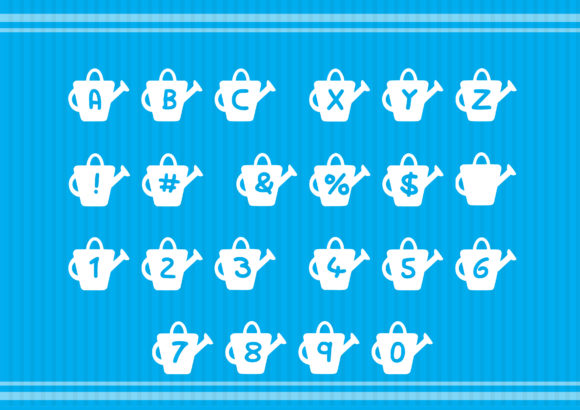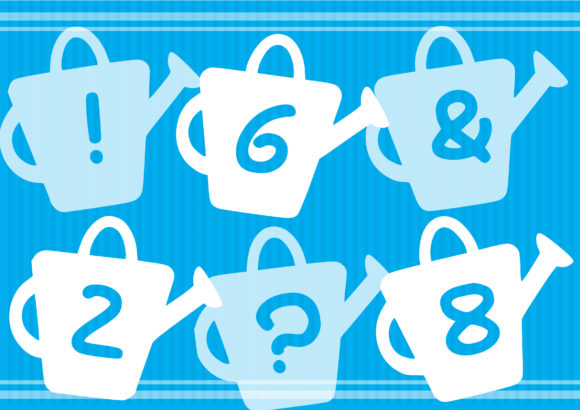
Introduction to Play Watering Can Font
As a designer, there’s nothing quite like the thrill of bringing a creative project to life. You’ve poured your heart and soul into every detail, from the color palette to the typography. But sometimes, it’s the little things that can make all the difference. That’s where the Play Watering Can Font comes in – a unique and eye-catching font that’s sure to elevate your designs to the next level.
With its quirky watering can design, this font adds a touch of whimsy to any project. Whether you’re working on a design for a gardening blog or a children’s book, the Play Watering Can Font is a versatile resource that’s sure to bring a smile to your face.
As a valuable addition to any designer’s library, the Play Watering Can Font offers a high-quality, transparent background design that’s perfect for a variety of creative projects.
Key Features of Play Watering Can Font
- High-quality design: The Play Watering Can Font is designed with precision and care, ensuring a professional look for your creative project.
- Transparent background: This font features a transparent background, making it easy to overlay on any image or design without any unwanted background elements.
- Large character set: The font includes a large character set, including uppercase and lowercase letters, numbers, and punctuation marks.
- Perfect for design projects: The Play Watering Can Font is ideal for creative projects that require a unique and eye-catching design element, such as invitations, posters, and social media graphics.
Honest Review: Play Watering Can Font
As a designer, I’m always on the lookout for unique and high-quality design resources to enhance my creative projects. Recently, I came across the Play Watering Can Font, and I must say, it’s a great addition to any design toolkit.
However, I did notice that the font is only available in a few styles, which may limit its versatility for more complex projects.
Overall, I’m impressed with the Play Watering Can Font, and I would definitely recommend it to designers looking for a unique and fun design resource. While it may have some limitations, its high-quality design and transparent background make it a valuable addition to any design toolkit.
⚠️ Limitations: Limited font styles available, may not be suitable for more complex projects.
The Play Watering Can Font is perfect for adding a touch of whimsy to your design project. Use it for creative projects, such as invitations, party decorations, and social media graphics. You can also use it for educational projects, such as worksheets and presentations.